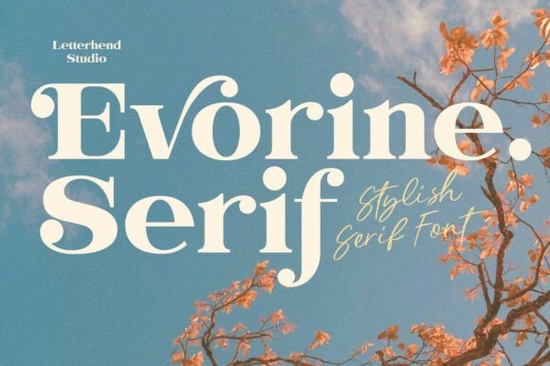
If you're looking for a serif font that feels both refined and approachable something that adds quiet confidence to your designs without shouting for attention Evorine Serif Font is worth your time. It’s not overly ornate, but it’s never plain. Think of it as the kind of typeface you’d choose for a boutique café’s chalkboard menu or a small-batch skincare label: soft curves, gentle contrast, and just enough vintage warmth to feel intentional, not dated.
What makes Evorine Serif work so well in real projects?
Unlike many high-contrast serifs that lean formal or stiff, Evorine Serif balances elegance with ease. Its letterforms have rounded terminals and subtle flares especially noticeable in letters like a, e, and s which soften its structure without losing clarity. That’s why it reads beautifully at medium sizes (16–24pt) on packaging, social posts, or printed invites. It’s also highly legible in body text when paired thoughtfully say, with a clean sans-serif for subheads or captions.
Designers working on fashion branding often tell us they reach for Evorine Serif when they want sophistication without severity. It’s equally at home on a wedding invitation suite as it is on a limited-edition tote bag or a seasonal newsletter for a handmade ceramics studio. Because it’s designed with consistent spacing and open counters, it scales cleanly across formats from Instagram Stories to letterpress business cards.
How does it compare to other popular serif fonts?
If you’ve used Girl From Nowhere, you’ll notice Evorine Serif shares some of that same lyrical rhythm but with more traditional serif anatomy and less decorative flair. Where Girl From Nowhere leans into expressive swashes and irregular weight shifts, Evorine Serif keeps things grounded, making it easier to pair with supporting typefaces or use in structured layouts.
It’s also distinct from Bodoni-inspired fonts, which tend toward sharp, dramatic contrast and rigid geometry. Evorine Serif has contrast, yes but it’s softer, more organic. You’ll feel that difference most in lowercase letters like g and y, where the descenders curve gently rather than snap into tight, angular finishes.
For those who like modern serif bundles, Modern Bundle Font offers variety and flexibility, but Evorine Serif stands out when you need one go-to font that delivers personality and polish in equal measure. It doesn’t try to do everything just one thing, really well.
Where do people actually use Evorine Serif?
- Café and restaurant menus especially hand-drawn or minimalist print layouts where warmth matters more than formality
- Wedding stationery from save-the-dates to place cards, thanks to its graceful proportions and readability at small sizes
- Beauty and wellness packaging think glass serum bottles or soy wax candles where typography supports calm, considered branding
- Editorial design magazine pull quotes, blog headers, or zine covers where tone and texture matter as much as content
- Aesthetic social media graphics Pinterest quote cards, Instagram post headers, or Reels text overlays that need to feel cohesive, not cluttered
It’s not a display-only font, nor is it meant for long-form web copy but it shines where typography plays a supporting yet expressive role. That sweet spot between “I see this and I trust it” and “I see this and I like it.”
Here’s a quick checklist to help you decide if Evorine Serif fits your current project:
- You need a serif font that feels warm and human not cold or corporate
- Your project includes short-to-medium text blocks (headlines, product names, quotes, labels)
- You’re pairing it with a neutral sans-serif (like Montserrat, Inter, or Poppins) and want contrast without clash
- You value clean OpenType features Evorine Serif includes standard ligatures and stylistic alternates for subtle variation
- You’re okay with a font that’s elegant but not flashy it won’t dominate your layout, but it will lift it
If most of those ring true, Evorine Serif Font is likely a thoughtful addition to your toolkit not a replacement for everything else, but a reliable voice when you need something quietly confident.